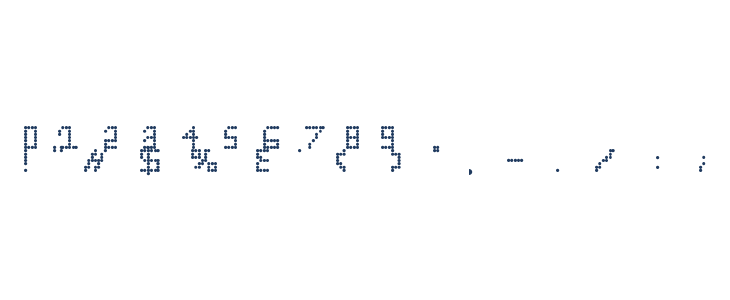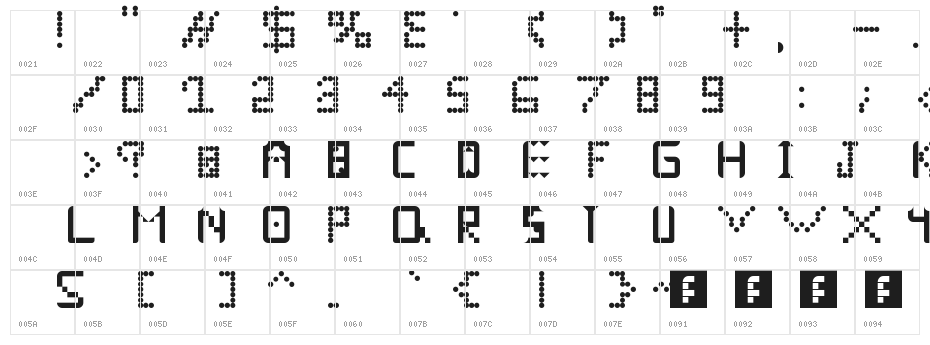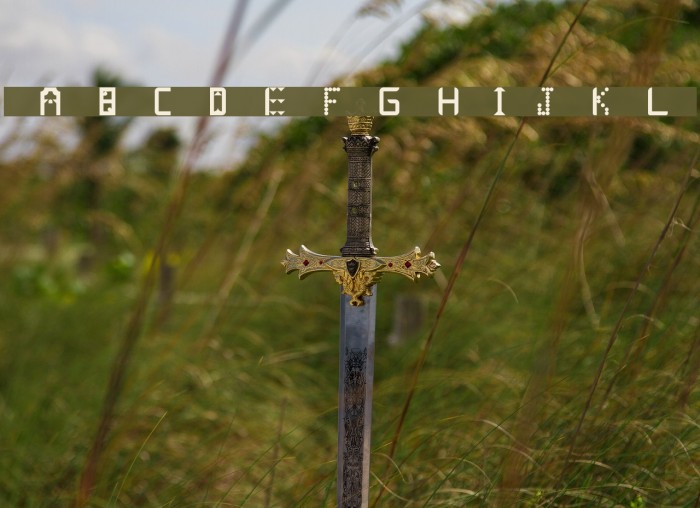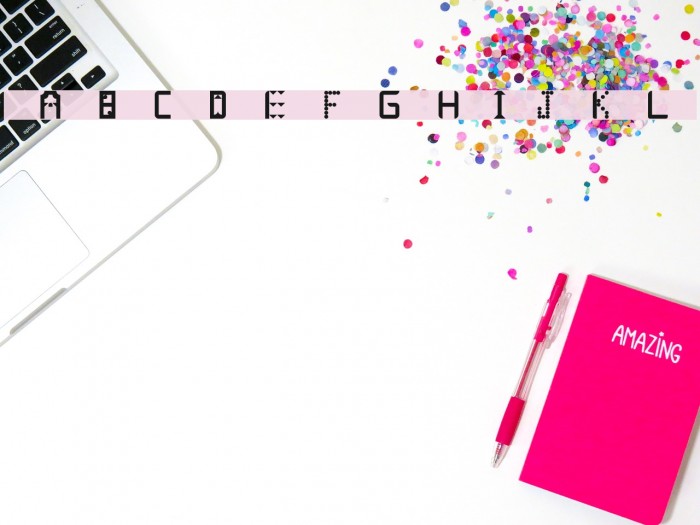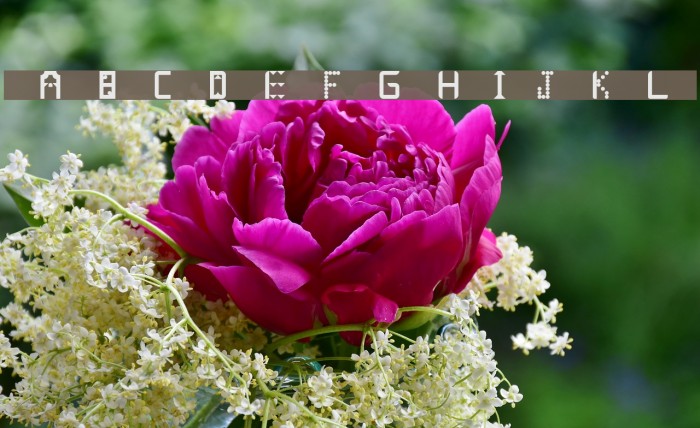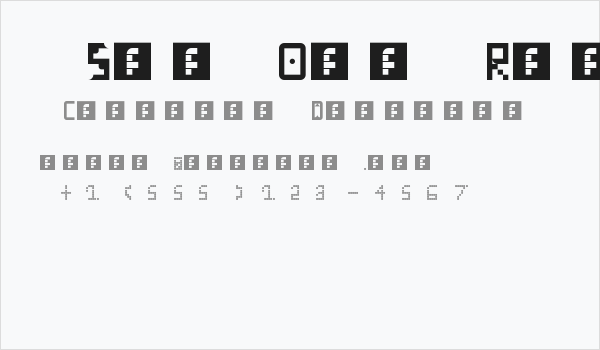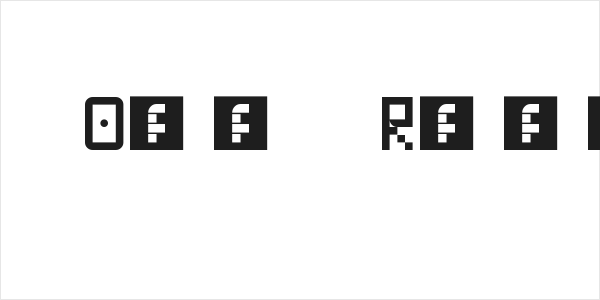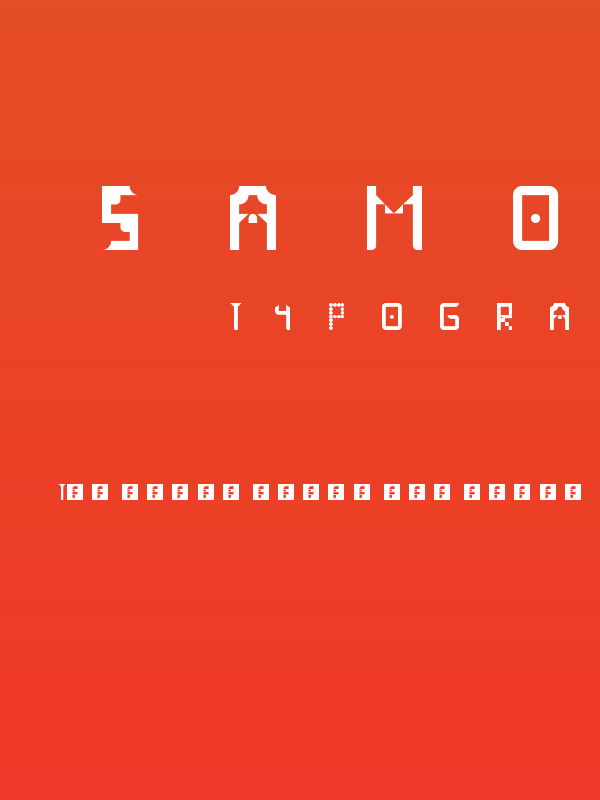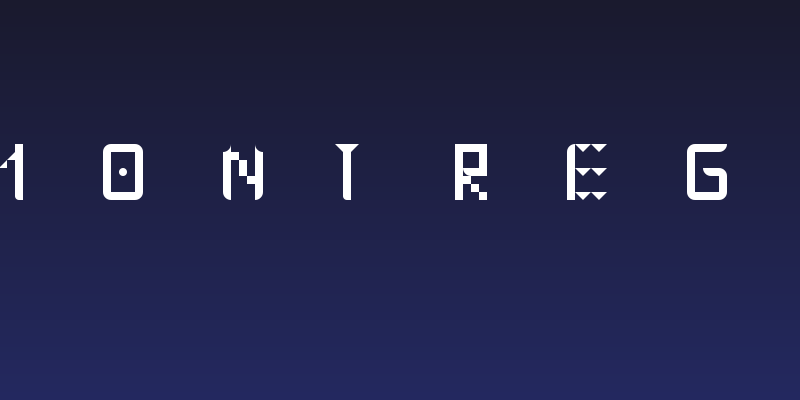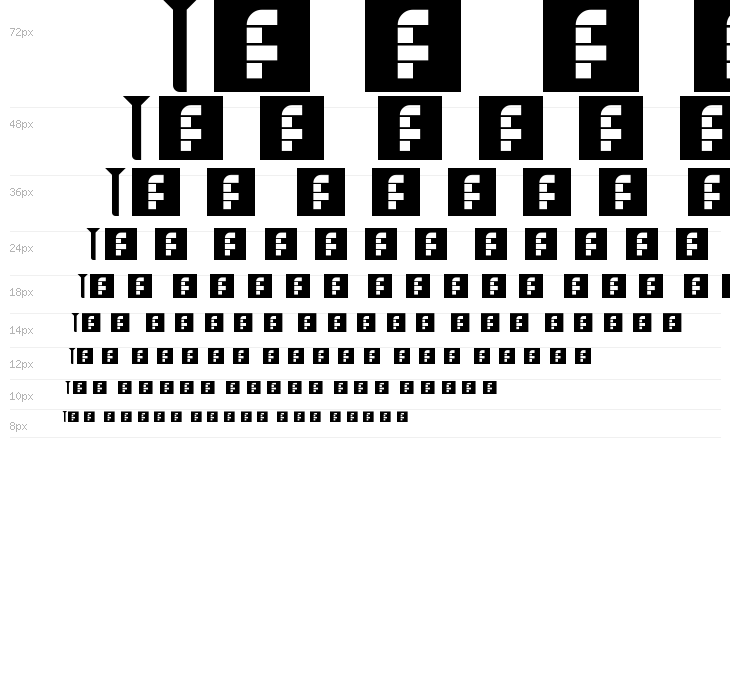
SamOnt Regular Font
SamOnt Regular Description
This font features a distinct pixelated style, reminiscent of early digital displays and retro video games. Each character is constructed from a grid of dots, giving it a unique, blocky appearance. The uppercase letters are bold and geometric, while the lowercase letters maintain the same pixelated structure, ensuring consistency across the typeface. Numbers and special characters follow the same design principles, making the font cohesive and versatile. The overall aesthetic is both nostalgic and modern, suitable for projects that require a digital or tech-inspired look.
| Overall Style | Retro, Digital |
| Use Case | Logos, Headlines, Posters |
| Proposed Projects | Ideal for video game design, tech-themed posters, digital art projects, and retro-style branding. |